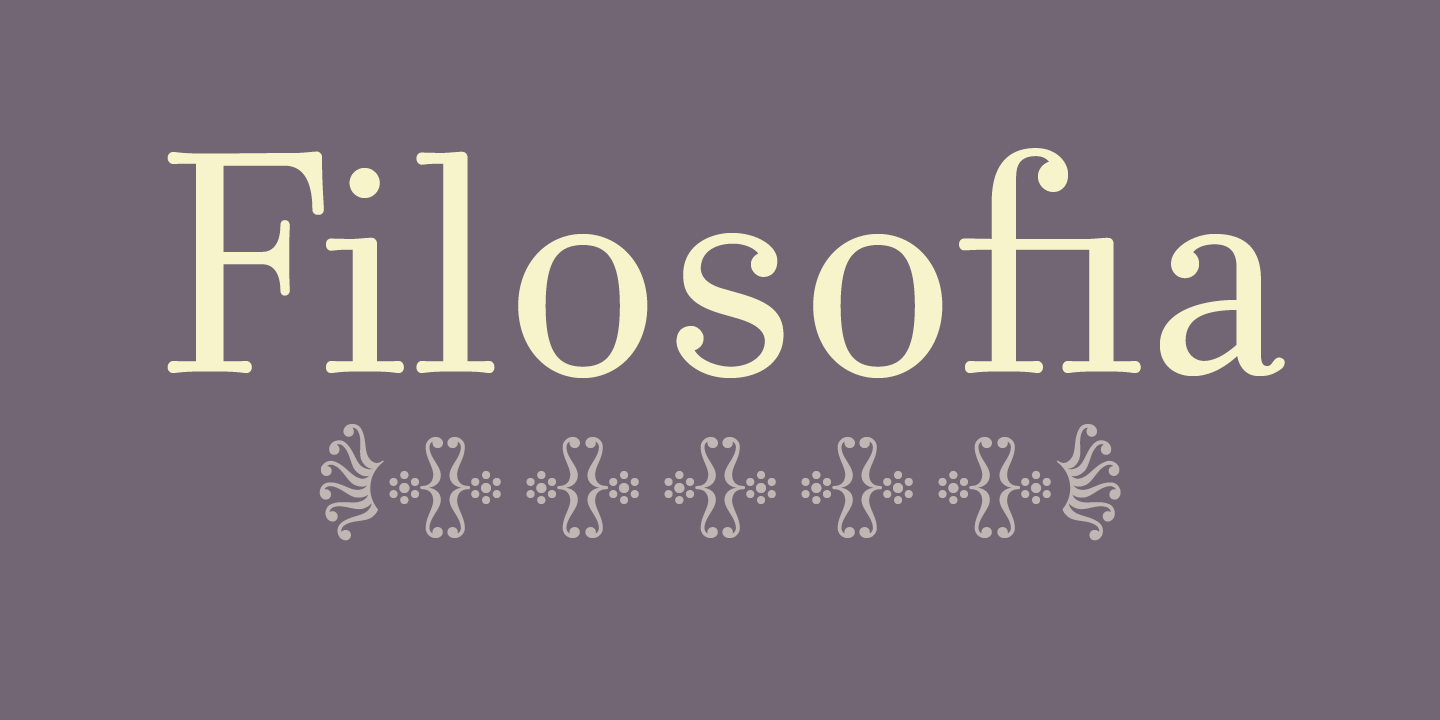
Filosofia Font is perfect for academic publications, philosophical journals, intellectual book covers, university press materials, scholarly conference programs, research institute communications, literary magazine layouts, academic thesis documents, philosophical society newsletters, and prestigious educational materials.
What makes Filosofia Font exciting is its intellectual sophistication and philosophical elegance that embodies the pursuit of wisdom with scholarly refinement and contemplative depth. This distinguished typeface captures the essence of philosophical inquiry with its thoughtful character forms and academic proportions that evoke ancient Greek texts, university libraries filled with leather-bound volumes, and the timeless pursuit of knowledge that defines human intellectual achievement. The font's scholarly character creates an immediate impression of wisdom and the kind of intellectual gravitas that commands respect in academic circles.
Filosofia Font family includes regular weight with intellectually crafted character designs featuring classical proportions and philosophical styling. The typeface maintains exceptional readability while showcasing its distinctive academic personality through thoughtfully designed letterforms that seem carved by the same intellectual precision that guides great philosophical discourse and scholarly investigation.
Academic professionals consistently select Filosofia Font Free Download for projects requiring authentic intellectual appeal and scholarly credibility. This remarkable typeface brings the dignity of philosophical tradition to modern communications, combining classical aesthetics with contemporary functionality to create meaningful academic experiences. The thoughtfully designed characters ensure prestigious positioning across all applications, making it essential for universities, academic publishers, and any institution seeking to communicate the intellectual excellence and philosophical depth that defines serious academic work and the eternal quest for wisdom through Filosofia Font Free Download.